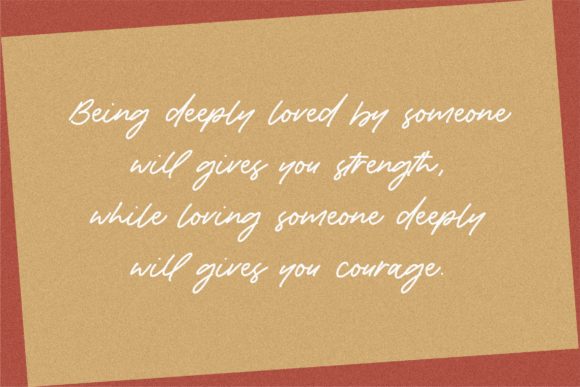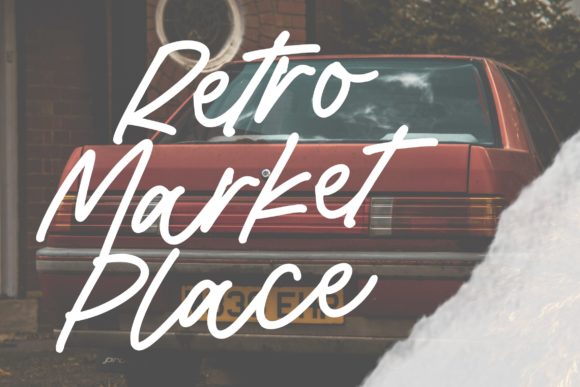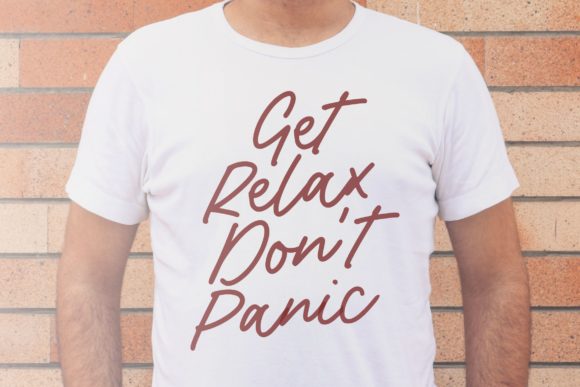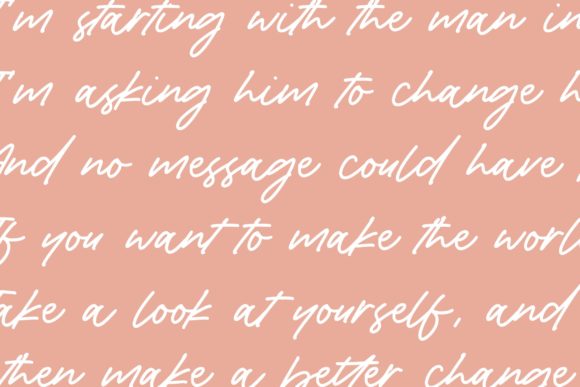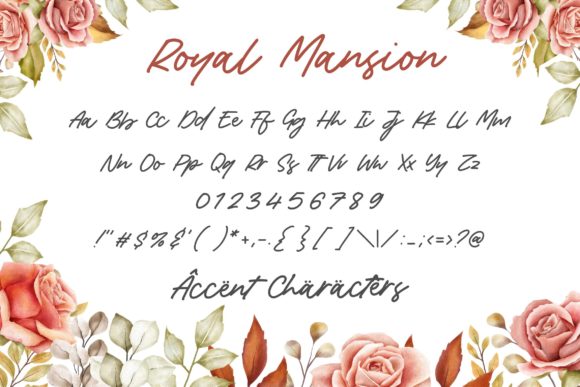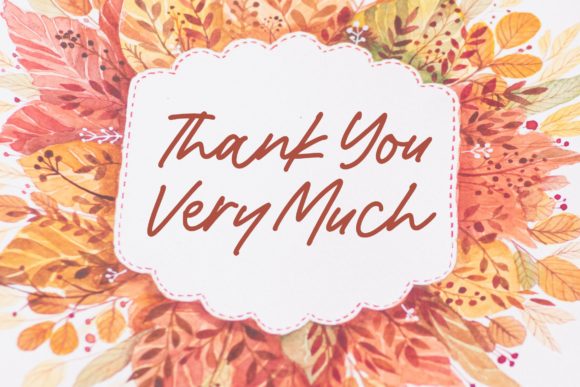
Introduction to Royal Mansion Font
As you sit at your desk, staring blankly at a blank canvas, the spark of creativity strikes. You envision a design that exudes elegance, sophistication, and a touch of luxury. Suddenly, the perfect font pops into your mind – one that will elevate your project to new heights and leave a lasting impression. For many designers, that font is the Royal Mansion Font, a flowing handwritten font that embodies the essence of refinement and poise.
With its elegant touch and timeless style, the Royal Mansion Font is a game-changer for designers seeking to create high-quality, visually stunning designs. Whether you’re working on a creative project that requires a touch of whimsy or a sophisticated brand identity, this font is sure to impress. And the best part? It’s available for free download, making it an invaluable design resource for any creative professional.
Key Features of Royal Mansion Font
- High-quality design for creative projects: The Royal Mansion Font is ideal for adding a touch of elegance to your designs, making it perfect for wedding invitations, luxury brands, and other high-end projects.
- Large character set: With over 200 characters, the Royal Mansion Font offers a wide range of glyphs, including uppercase and lowercase letters, numbers, and special characters.
- Unique, cursive design: The Royal Mansion Font features a unique, cursive design that adds a touch of sophistication and elegance to any project.
Honest Review: Royal Mansion Font
I recently stumbled upon the Royal Mansion Font, and I must say it’s been a game-changer for my creative project. As a designer, I’m always on the lookout for high-quality design resources that can elevate my work. This font definitely fits the bill.
Here are some things that work well with the Royal Mansion Font:
- ✨ The font’s luxurious feel is perfect for projects that require a touch of elegance.
- ⚠️ The font may not be suitable for projects that require a lot of text, as it can be quite ornate.
- ⚠️ Some users may find the font’s complexity overwhelming, especially for beginners.
Overall, I’m really impressed with the Royal Mansion Font. It’s a great addition to any designer’s toolkit, and I’ve already started using it in several of my projects. If you’re looking for a high-quality, free design resource, I highly recommend giving it a try.
Experiment with different font sizes and colors to create a unique and eye-catching design. Use the transparent background to create a sense of depth and layering in your design.
The Royal Mansion Font is perfect for creating invitations, wedding stationery, and other luxury-themed designs. It’s also great for branding and logo design, as it conveys a sense of elegance and sophistication.